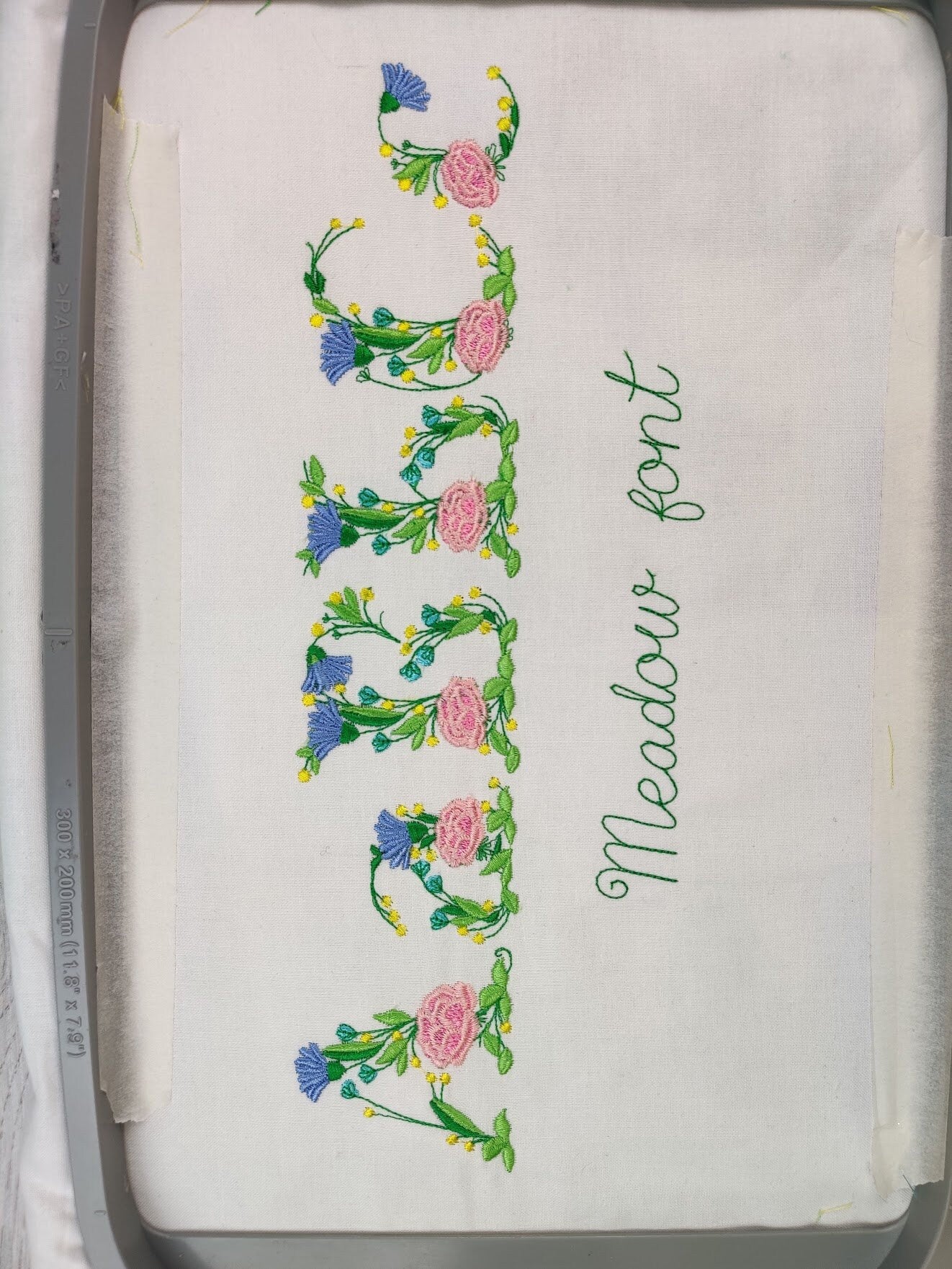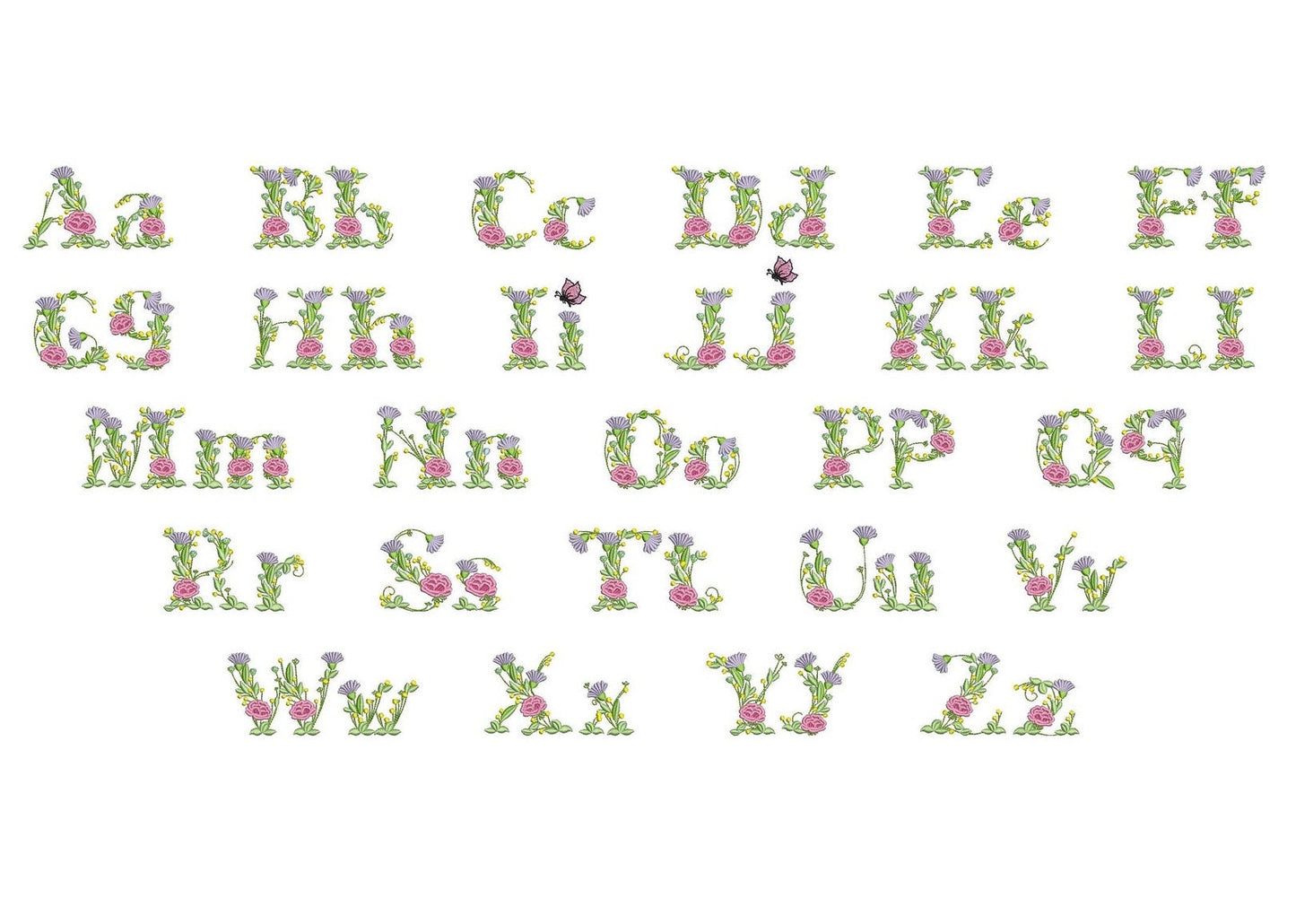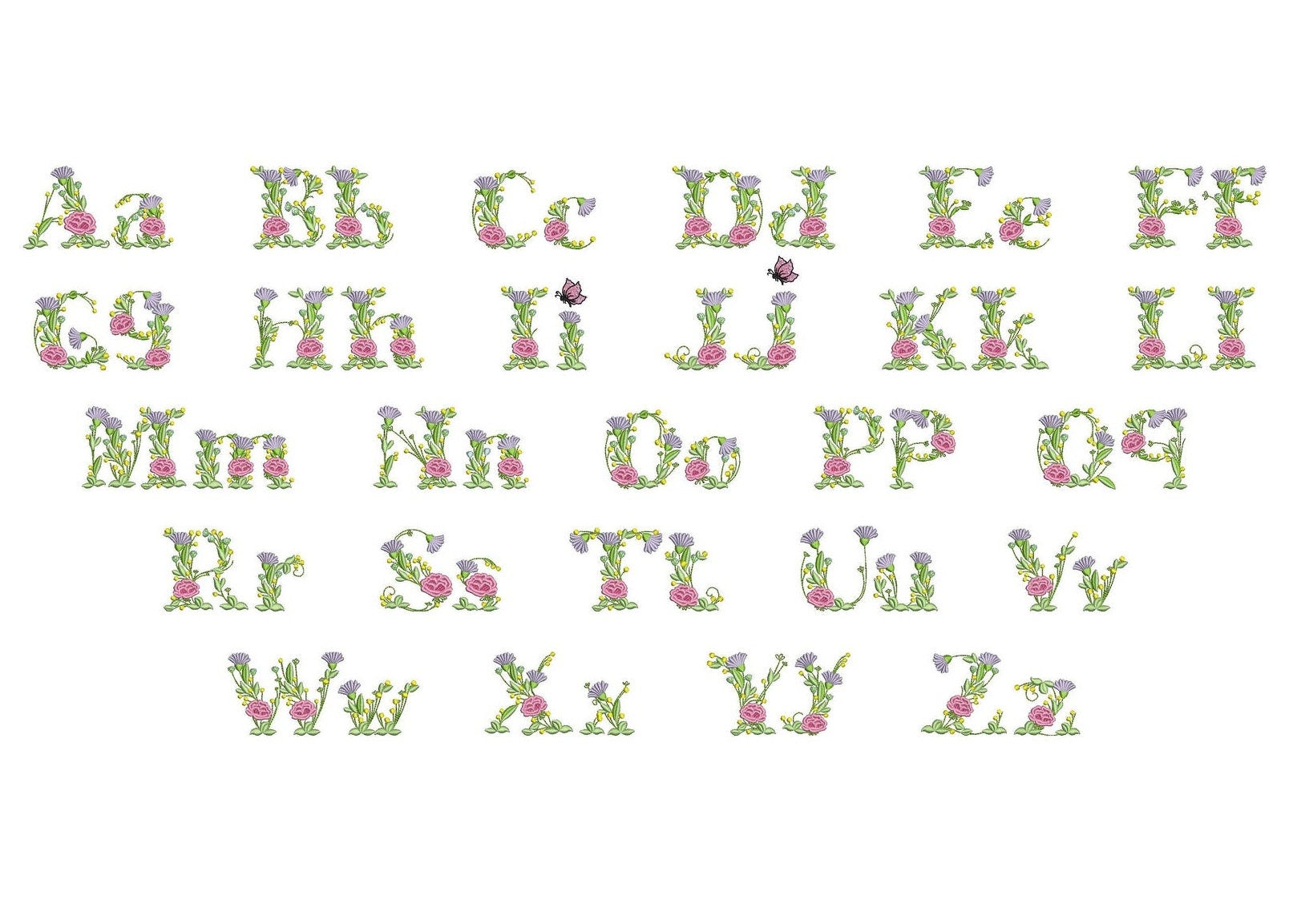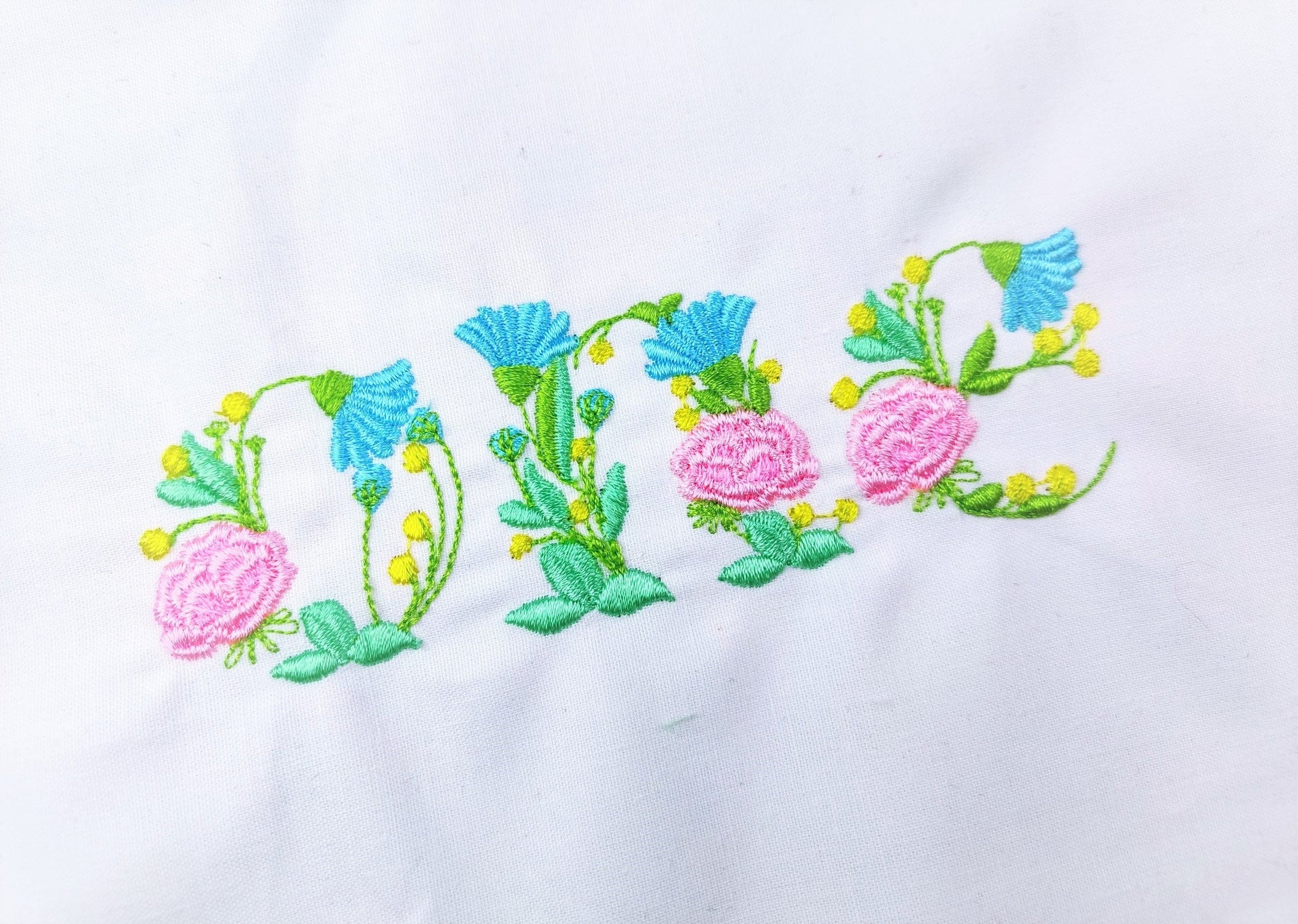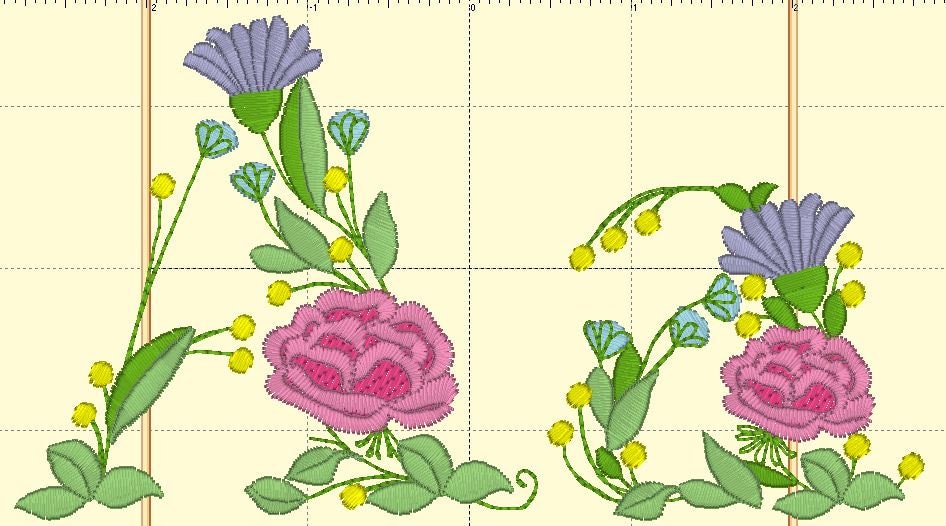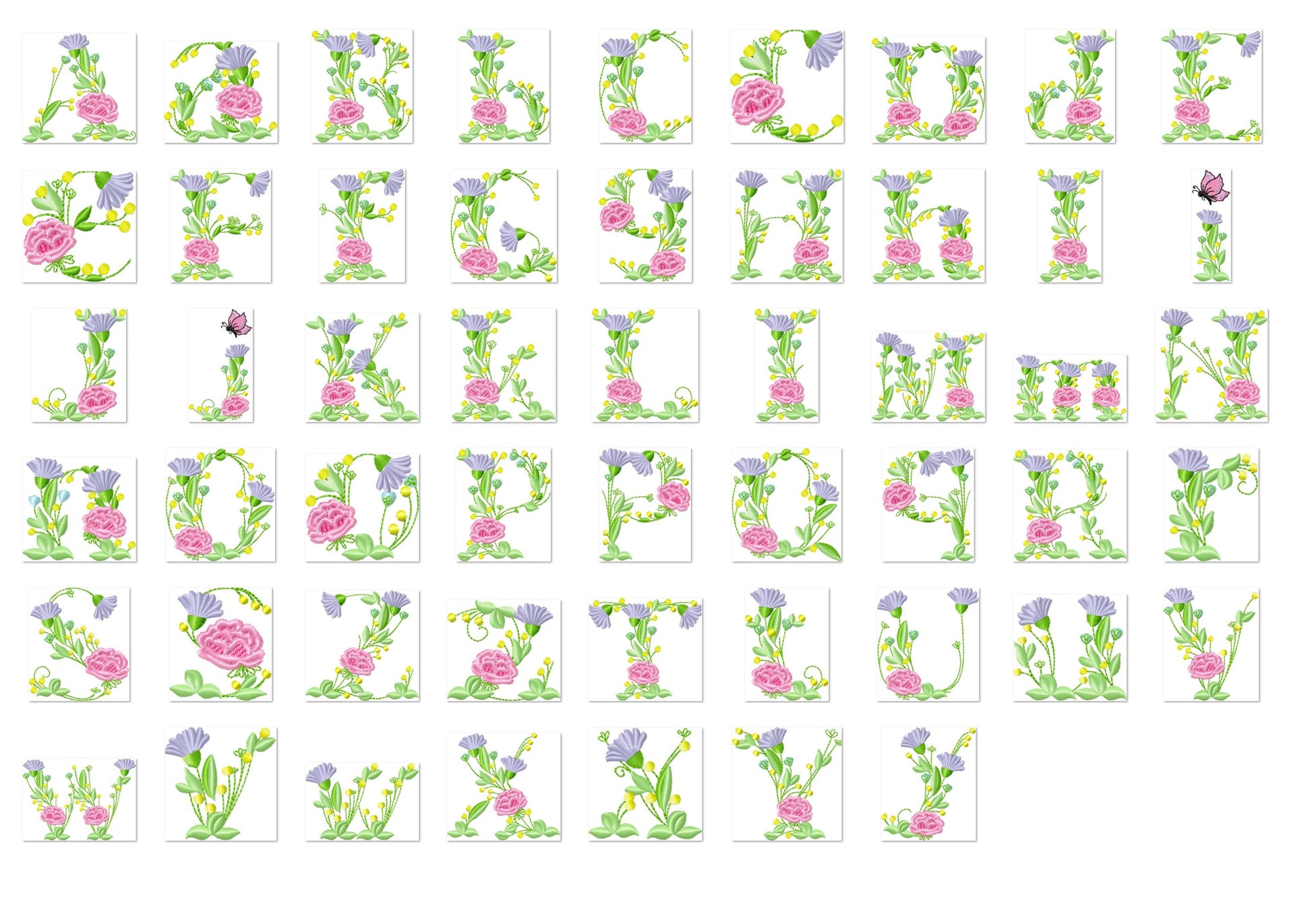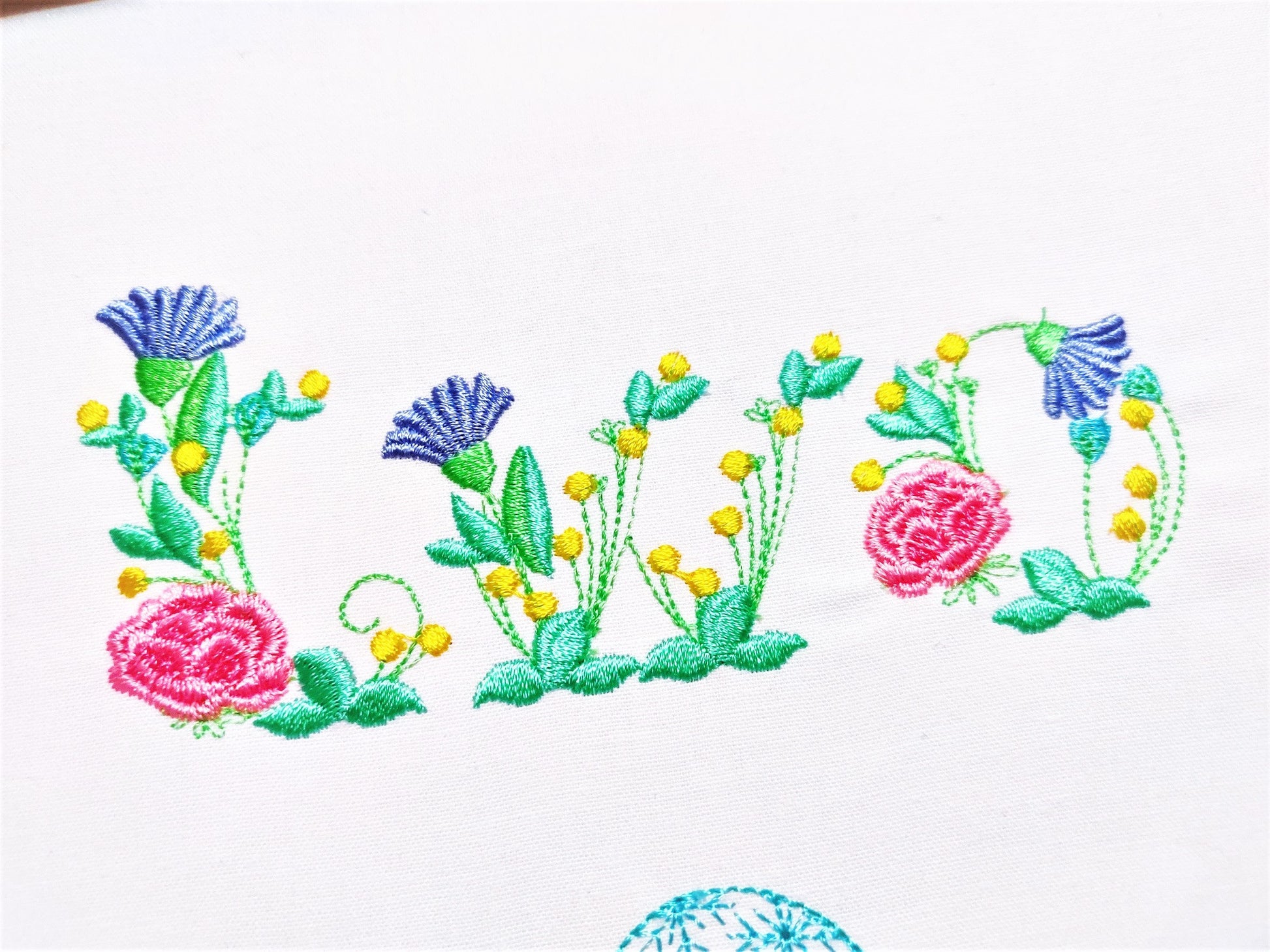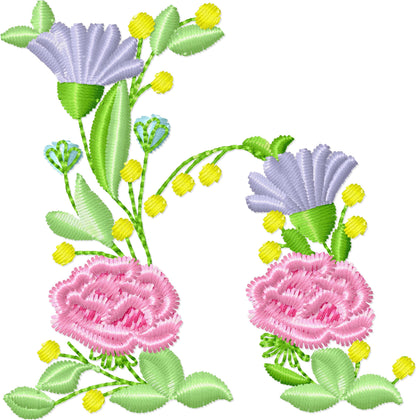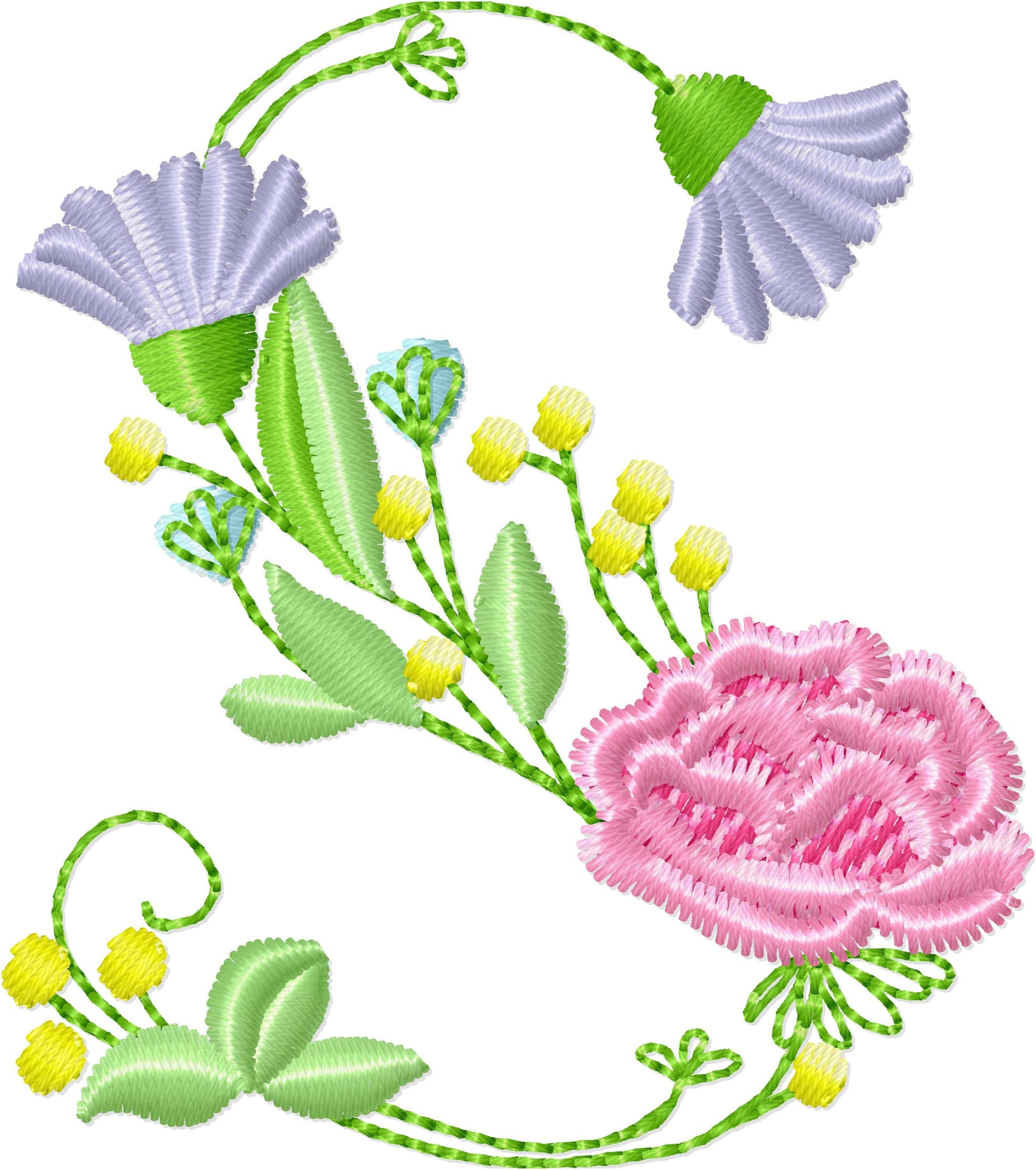
Or click to open the linkA meadow flower font with uppercase and lowercase letters, for floral names and monograms on pillows, towels and gifts.
Every letter is decorated with meadow flowers. Uppercase and lowercase letters in five sizes: 2, 2.5, 3, 3.5 and 4 inches.